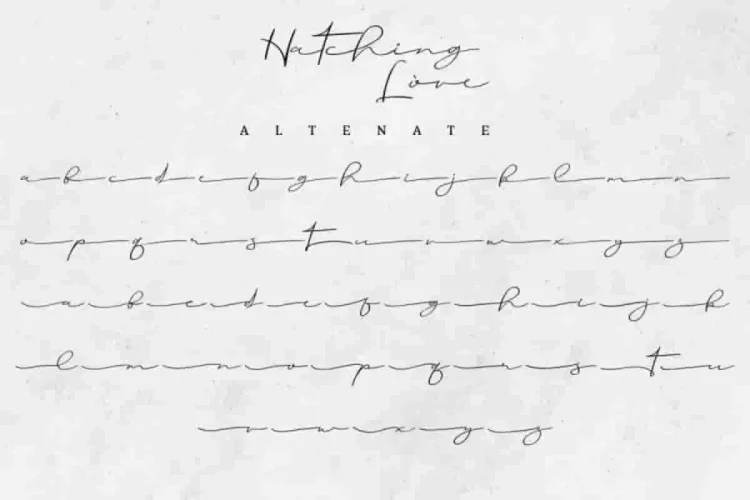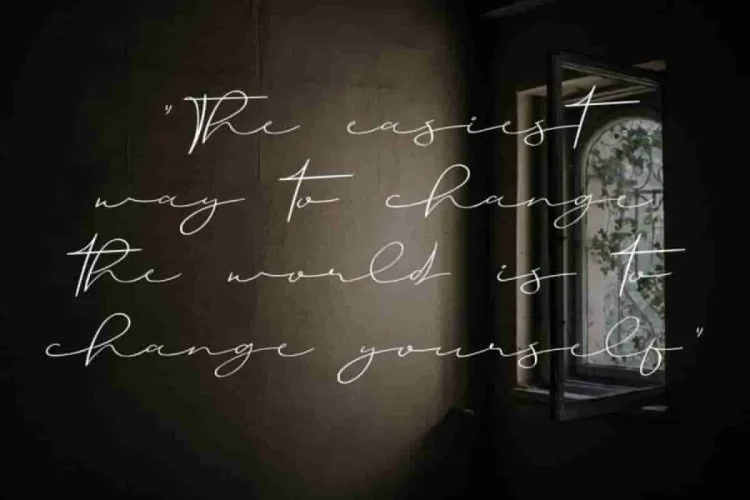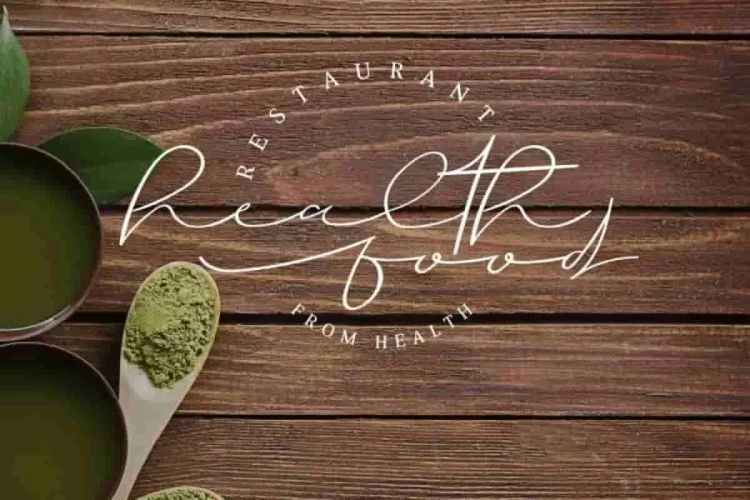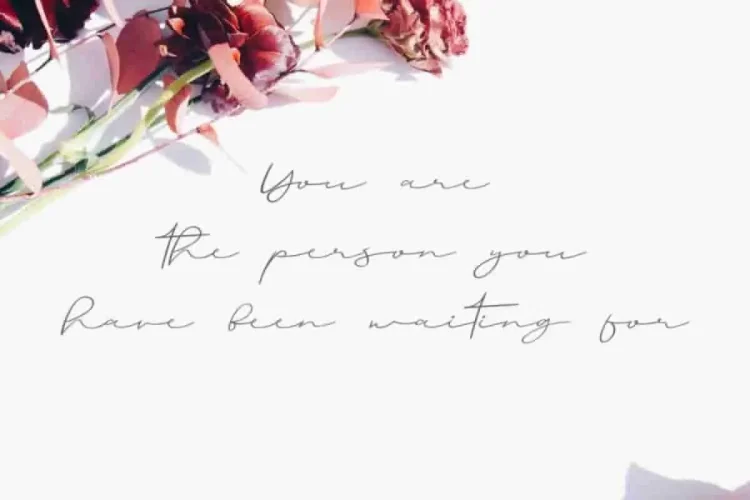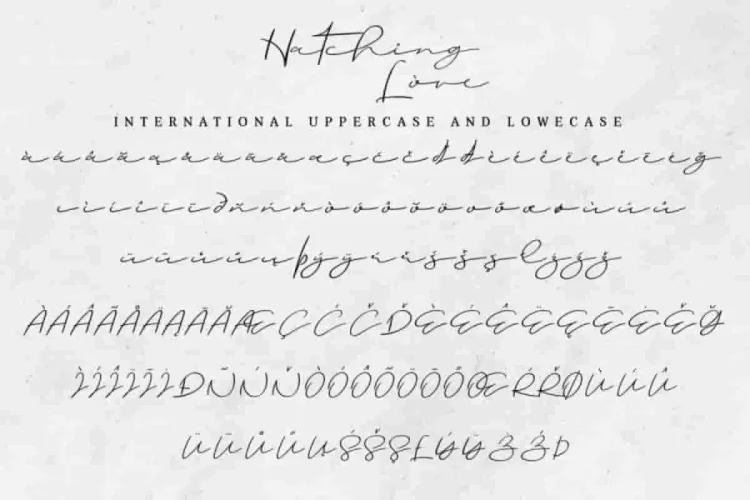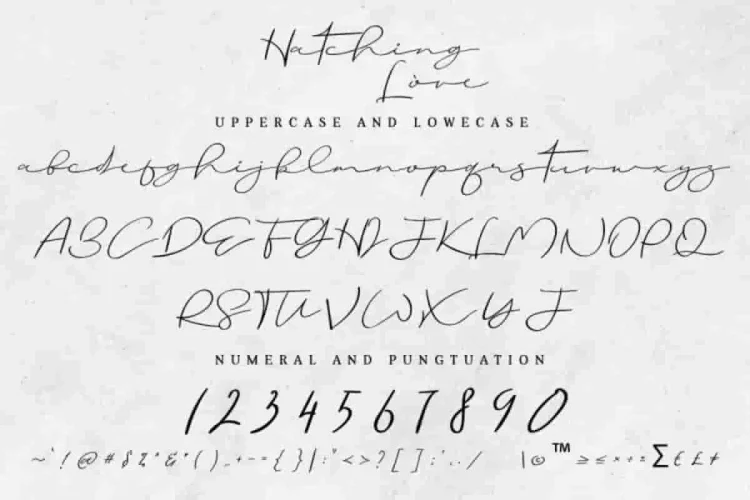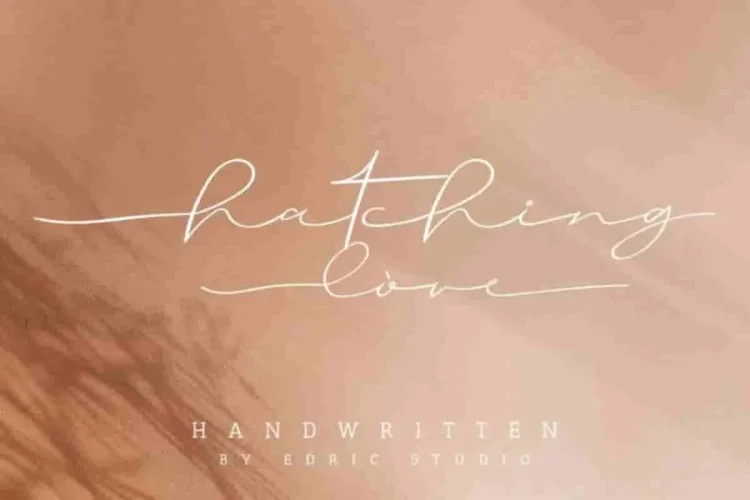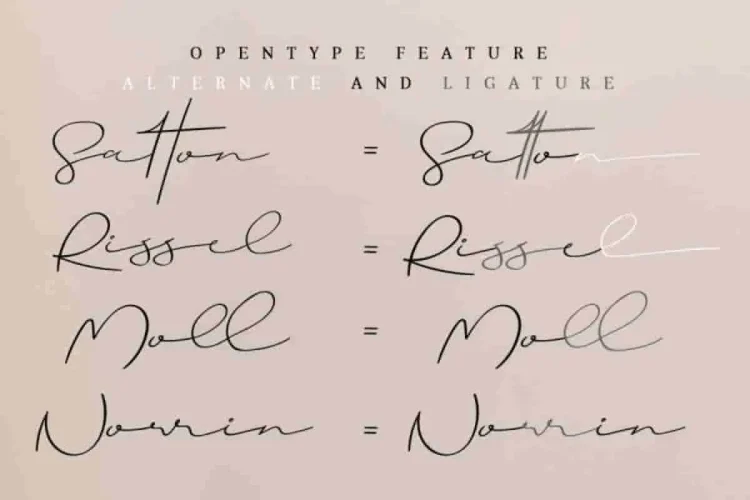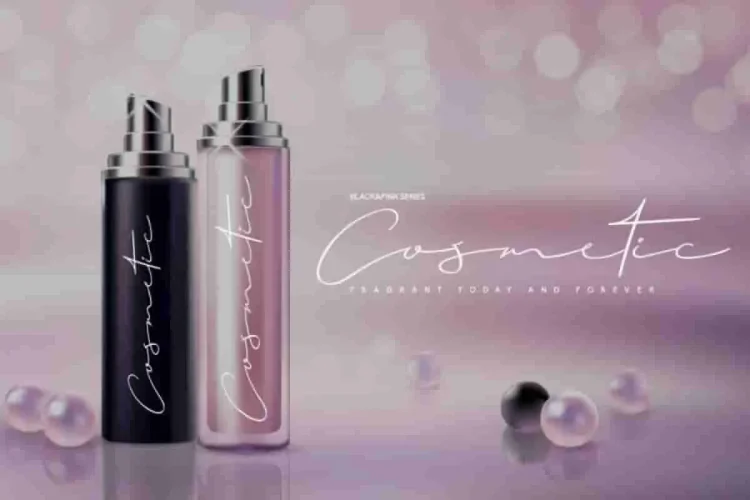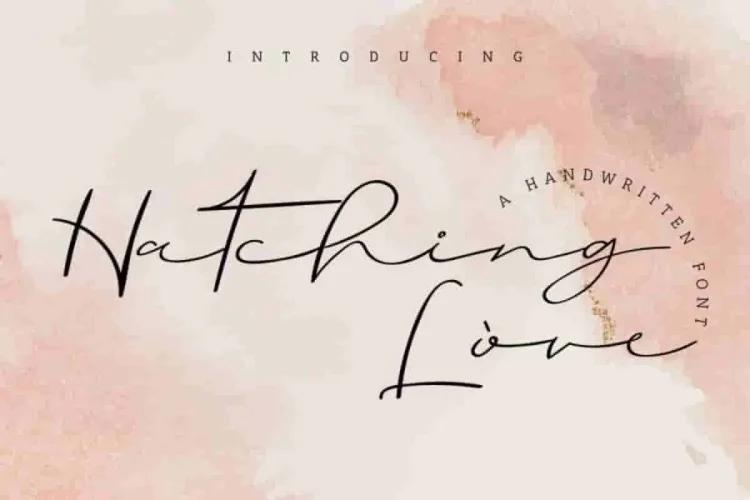
Hatching love Handwritting Font
We need a more beautiful calligraphy font. so We made one!
Now, let us introduce our stunning calligraphy font: Hatching Love.
Hatching Love is an elegant calligraphy script font, and it brings a luxurious touch to every design. This is a beautiful calligraphy font with exclusive glyhps set that is the luxurious, elegant, beautiful, stylish and sophisticated. Plus it has all lowercase alternatives on each gplyhs.
In fact, Hatching Love will be Perfect for (with extended licenses): branding, logo, stationery, business card, signage, flyer, brochure etc. There are many industries that is suitable for this font : artist, florist, novelist, law firm, musician, sales person, designer, traveler, hotel , makeup artist, socialist, feminist  etc